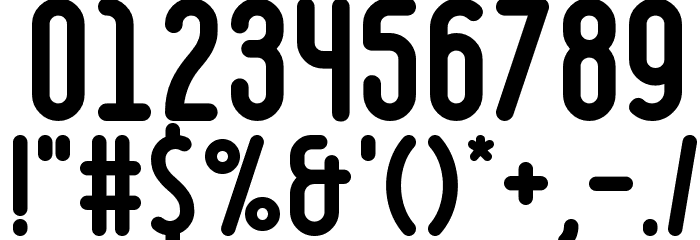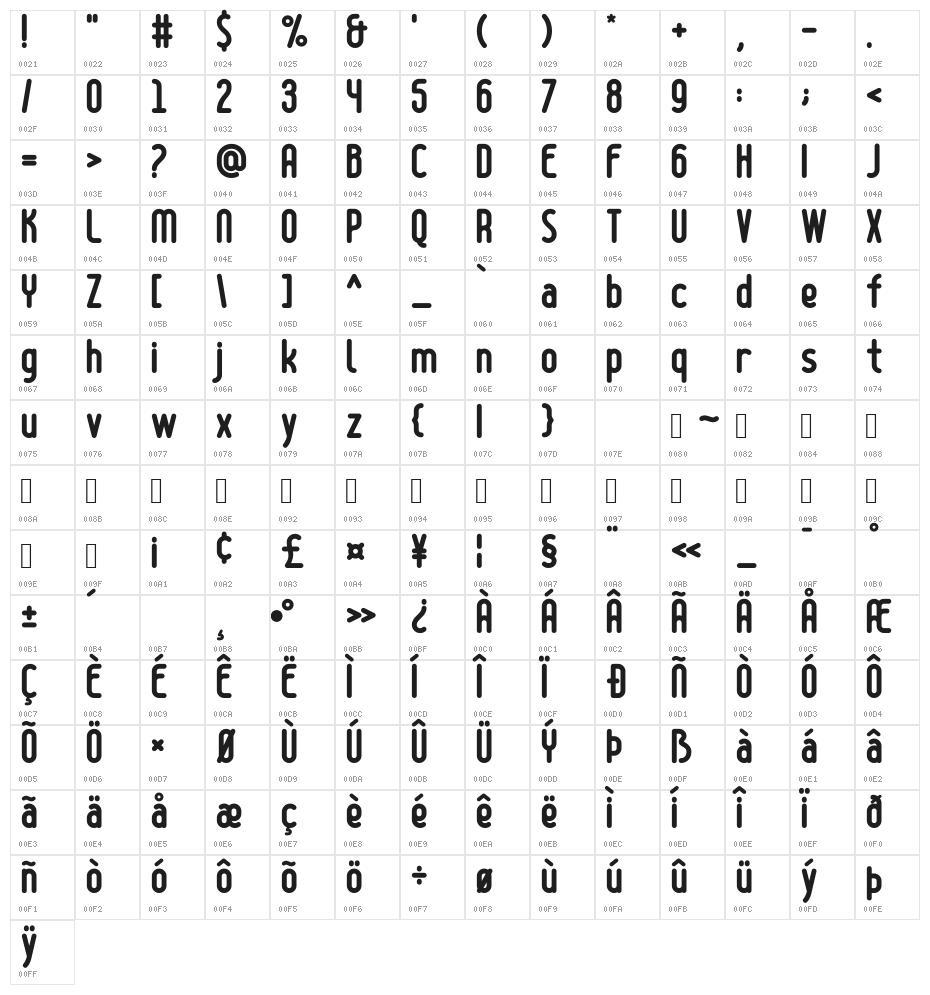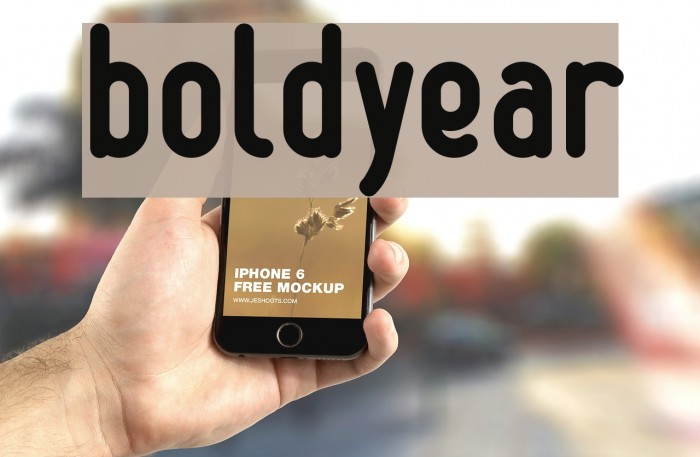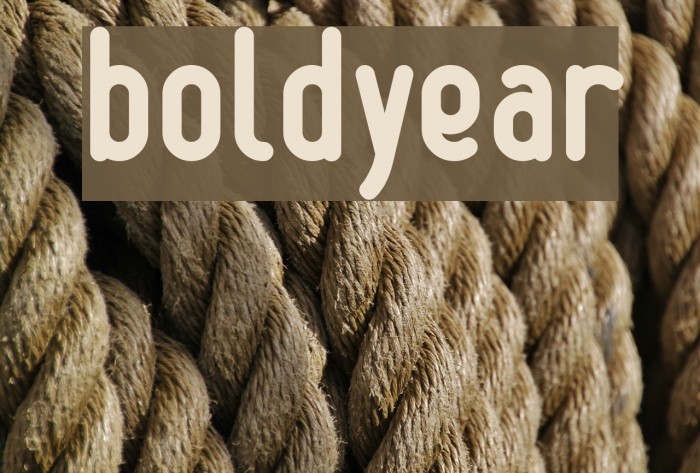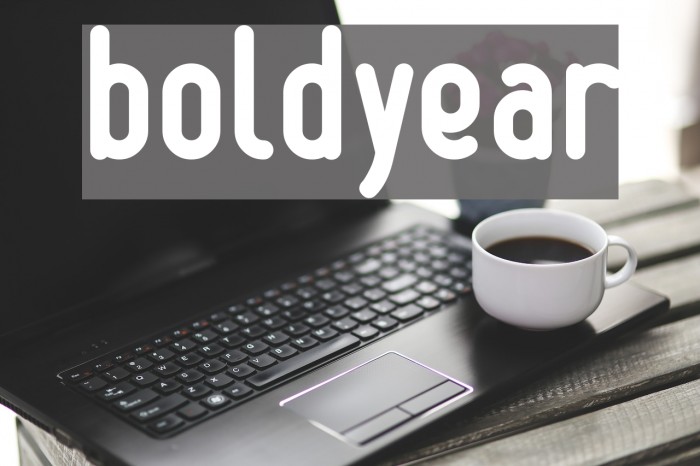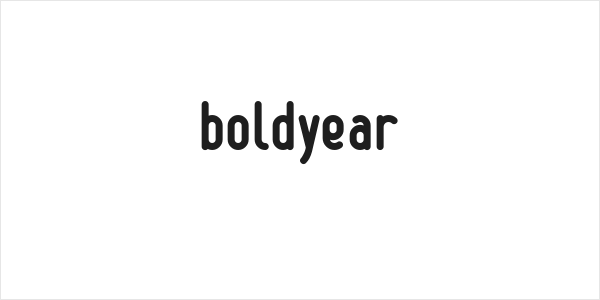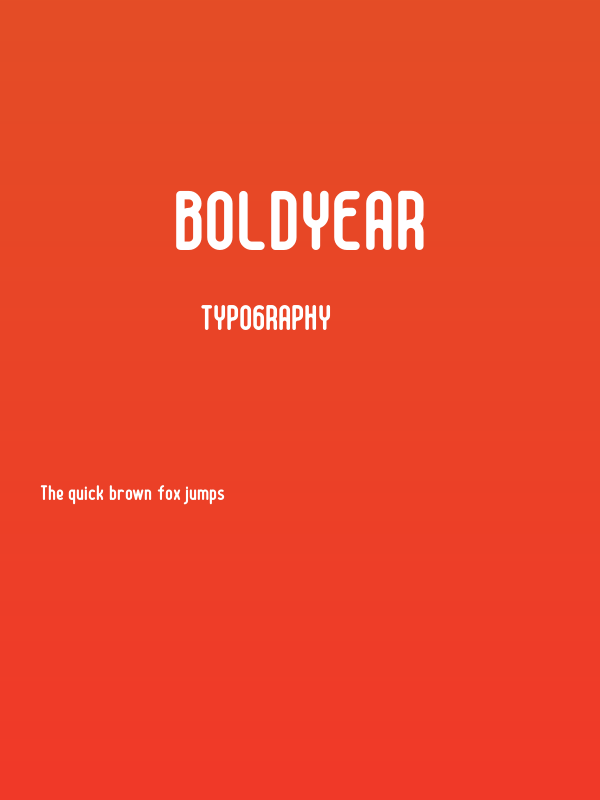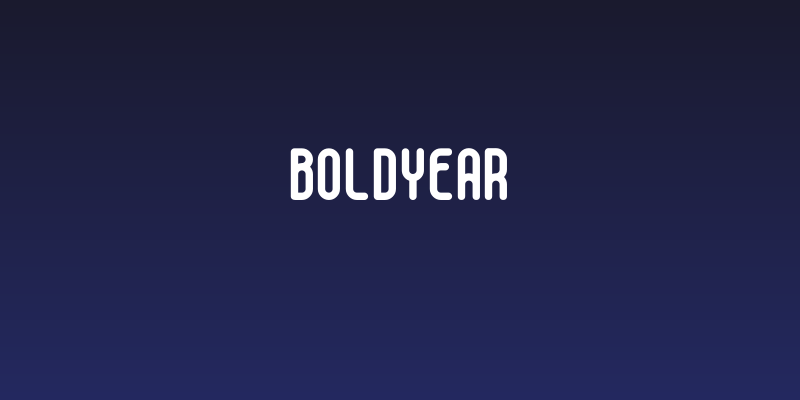
boldyear Font
boldyear Description
This font features a bold and rounded style with a modern and playful appearance. The characters are uniformly thick, giving it a strong presence. The rounded edges soften the overall look, making it approachable and friendly. The uppercase and lowercase letters maintain a consistent height, while the numerals are clear and easy to read. Special characters are well-integrated, maintaining the font's cohesive style. This font is versatile, suitable for various design projects that require a bold yet approachable aesthetic.
Proposed ProjectsIdeal for branding, posters, packaging, and children's books.